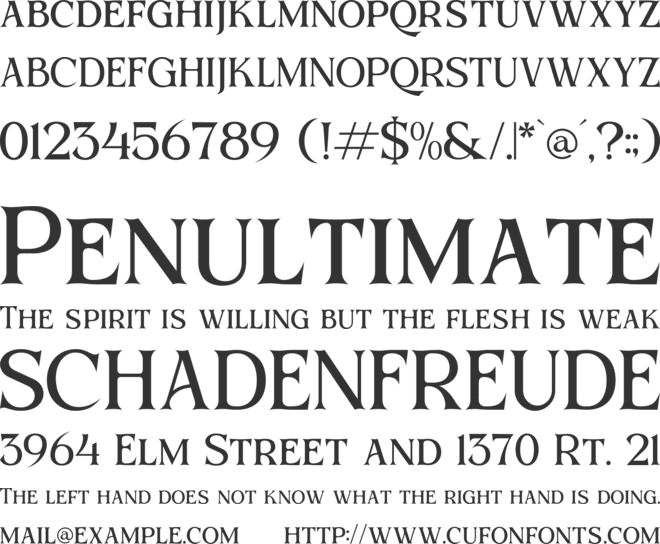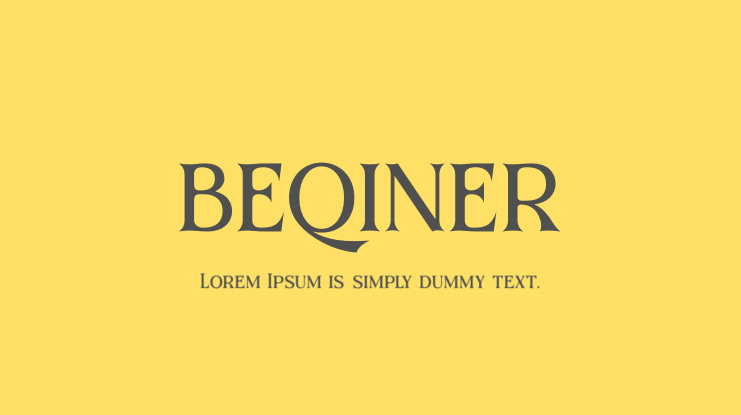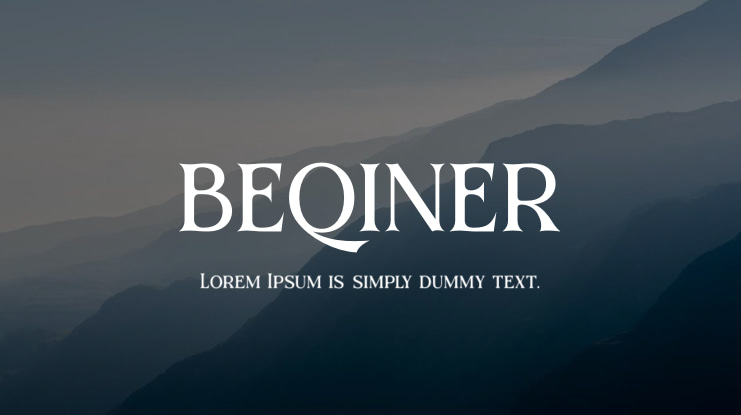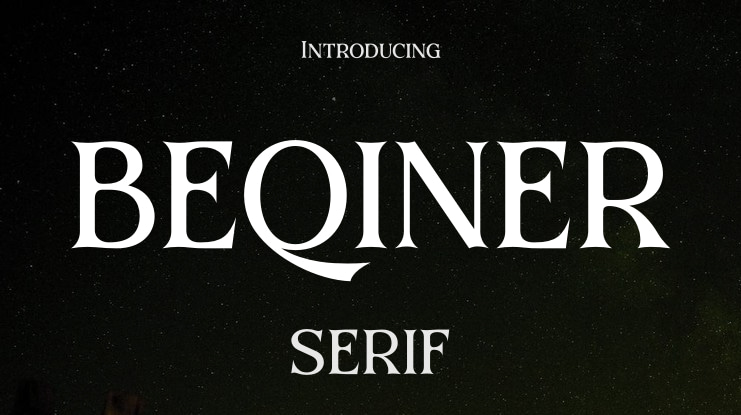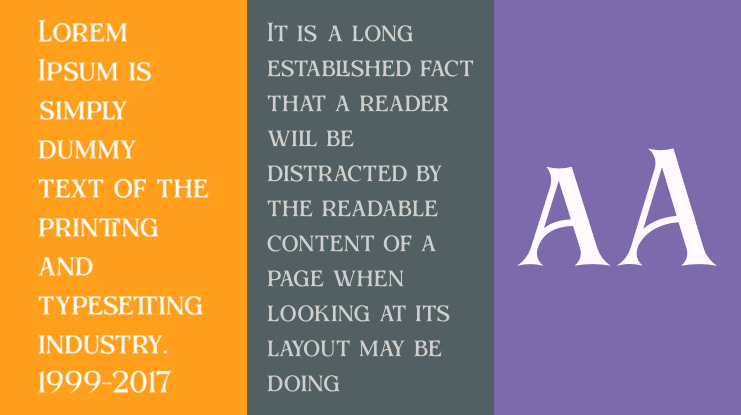
BEQINER ELEGANT SERIF TYPEFACE is suitable for any projects such as: logos, branding projects, homeware designs, product packaging, mugs, quotes, posters, shopping bags, t-shirts, book covers, name card, invitation cards, greeting cards, label, photography, watermark, special events, and all your other lovely projects that need a beautiful script taste.